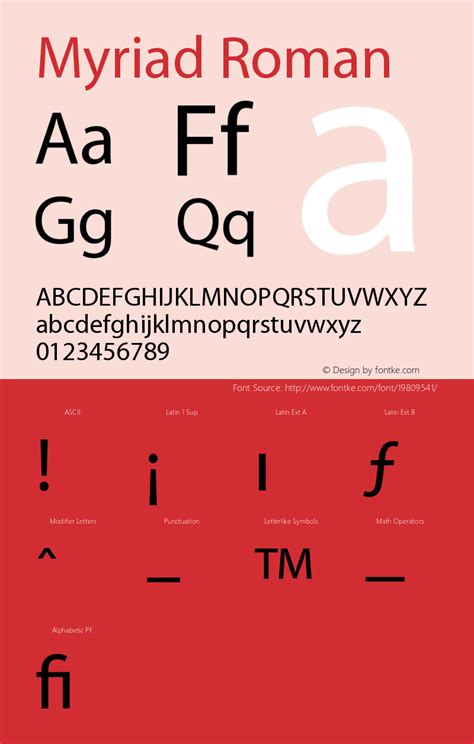
Myriad Roman Font Adobe
Myriad Roman Font Adobe - Web myriad pro expands this sans serif family to include the greek and cyrillic alphabets, as well as adding oldstyle figures and. (in windows) it can be found in c:\program files\common. Web the quick brown fox jumps over the lazy dog. Explore myriad variable designed by carol twombly, robert slimbach at adobe fonts. Web an adobe originals design first released in 1992, myriad has become popular for both text and display composition.
Explore Myriad Variable Designed By Carol Twombly, Robert Slimbach At Adobe Fonts.